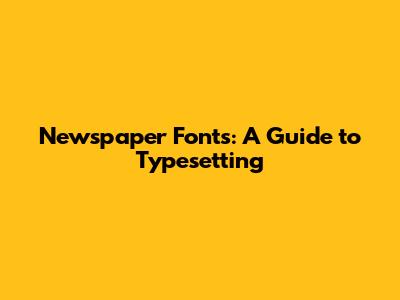
- Readability: The primary concern is readability, especially in small sizes. Fonts with clear, open letterforms and a generous x-height are ideal.
- Space Efficiency: Newspapers often need to fit a lot of text into a limited space. Compact fonts like Times New Roman can help maximize space without sacrificing readability.
- Contrast: Using a combination of serif and sans-serif fonts can create visual contrast and hierarchy, making the newspaper more engaging.
- Tone and Style: The fonts should reflect the newspaper's overall tone and style. A serious newspaper might opt for more traditional fonts, while a tabloid might choose bolder, more attention-grabbing options.
- Consistency: Maintaining consistency in font usage throughout the newspaper is crucial for creating a cohesive and professional look.
Choosing the right font for a newspaper is crucial for readability and overall aesthetic appeal. The fonts used in newspapers play a significant role in how readers perceive the content. These fonts must be legible in small sizes, space-efficient to fit more text on a page, and reflect the newspaper's tone and style. So, what fonts are typically used in newspapers?
Serif Fonts: The Traditional Choice
Serif fonts are a classic choice for newspaper body text due to their readability. Serifs are the small strokes at the end of letterforms that help guide the reader's eye across the page, making long articles easier to read. When it comes to newspapers, serif fonts are the workhorses that keep readers engaged from headline to last word. These fonts have a long history in print media, and their design is rooted in the principles of clarity and efficiency. Think of them as the reliable old friends that you can always count on to deliver a smooth reading experience. Let's dive into some of the most popular serif fonts you'll find gracing the pages of your favorite newspapers.
Times New Roman
Times New Roman is perhaps the most ubiquitous serif font in the world. Its compact design allows more text to fit on a page, which is essential for newspapers aiming to maximize space. Originally designed for The Times of London in 1931, this font has become a standard in print media due to its legibility and efficiency. Its balanced proportions and clear letterforms make it a reliable choice for body text, ensuring that readers can easily follow the narrative. The font's consistent appearance across different operating systems and devices also contributes to its widespread use. Times New Roman isn't just a font; it's a piece of publishing history. It represents an era when print was king, and readability was paramount. It continues to be a staple in the newspaper industry, providing a familiar and comfortable reading experience for millions of readers worldwide. So, next time you pick up a newspaper, take a closer look – chances are, you'll find Times New Roman hard at work.
Century Schoolbook
Century Schoolbook is another popular serif font known for its exceptional readability, especially in smaller sizes. Designed with the needs of schoolchildren in mind (hence the name), this font features clear, open letterforms and a generous x-height (the height of the lowercase letters), making it easy on the eyes. This font is particularly well-suited for newspapers that cater to a broad audience, including older readers who may appreciate its enhanced clarity. Its design emphasizes simplicity and legibility, ensuring that every letter is easily distinguishable. The font's wide proportions and consistent stroke weight contribute to its overall readability, reducing eye strain and promoting a comfortable reading experience. Century Schoolbook is more than just a font; it's a commitment to accessibility and clarity, ensuring that the information is easily accessible to everyone. Its timeless design and proven readability make it a solid choice for newspapers looking to prioritize the reader's experience.
Georgia
Georgia, designed by Matthew Carter in 1993, was specifically created to be legible on screens, but it also works well in print. Its larger x-height and clear letterforms make it highly readable even in smaller sizes. Unlike many traditional newspaper fonts, Georgia was designed with the digital age in mind. Its robust design and clear letterforms make it an excellent choice for newspapers that have a strong online presence. Whether you're reading a physical newspaper or browsing its online edition, Georgia ensures a consistent and comfortable reading experience. It bridges the gap between print and digital, making it a versatile option for modern news organizations. Georgia is more than just a font; it's a testament to the evolving landscape of journalism, where print and digital media converge. Its readability and versatility make it a valuable asset for newspapers looking to engage readers across all platforms.
Sans-Serif Fonts: Modern Accents
Sans-serif fonts, which lack the small strokes found in serif fonts, are often used for headlines, captions, and other display elements. They provide a clean, modern contrast to the serif fonts used in the body text. While serif fonts dominate the body of the text, sans-serif fonts step in to add visual interest and hierarchy to the page. They're the attention-grabbers, the signposts that guide you through the content. Sans-serif fonts are generally used in headlines and captions. These fonts are valued for their simplicity and clarity, and they bring a contemporary feel to the newspaper's layout. They make sure that important information pops off the page. Let's explore some popular sans-serif fonts and see how they contribute to the overall design of a newspaper.
Arial
Arial is a widely used sans-serif font known for its clean and simple design. While it is sometimes criticized for its lack of originality (being similar to Helvetica), its ubiquity and legibility make it a safe choice for headlines and other display elements. Its neutral appearance allows it to blend seamlessly with a variety of design styles, making it a versatile option for newspapers with diverse content. Whether it's used for a serious news story or a lighthearted feature article, Arial maintains a consistent level of readability and clarity. Arial is more than just a font; it's a reflection of the modern design aesthetic, where simplicity and functionality are paramount. Its widespread use and proven legibility make it a reliable choice for newspapers looking to communicate effectively with their readers.
Helvetica
Helvetica is a classic sans-serif font renowned for its clean lines and timeless appeal. It has been a favorite among designers for decades. Its neutrality and versatility make it suitable for a wide range of applications, including newspaper headlines, captions, and informational graphics. Its balanced proportions and consistent stroke weight contribute to its exceptional readability, ensuring that readers can easily scan and understand the information presented. Helvetica is more than just a font; it's a symbol of modern design, representing clarity, simplicity, and functionality. Its enduring popularity and proven effectiveness make it a valuable asset for newspapers looking to create a visually appealing and informative publication. Its clean lines and minimalist design make it a perfect choice for headlines and captions.
Open Sans
Open Sans is a humanist sans-serif font designed by Steve Matteson. Open Sans is optimized for print, web, and mobile interfaces, and boasts excellent readability characteristics. Its open forms and neutral appearance make it a versatile choice for headlines, captions, and body text in some cases. Its design focuses on readability and clarity, ensuring that the information is easily accessible to a wide audience. It is a contemporary font that is a popular choice in modern newspaper designs. Open Sans is more than just a font; it's a reflection of the modern design trend towards clarity and simplicity. Its versatility and readability make it a valuable asset for newspapers looking to engage readers across all platforms.